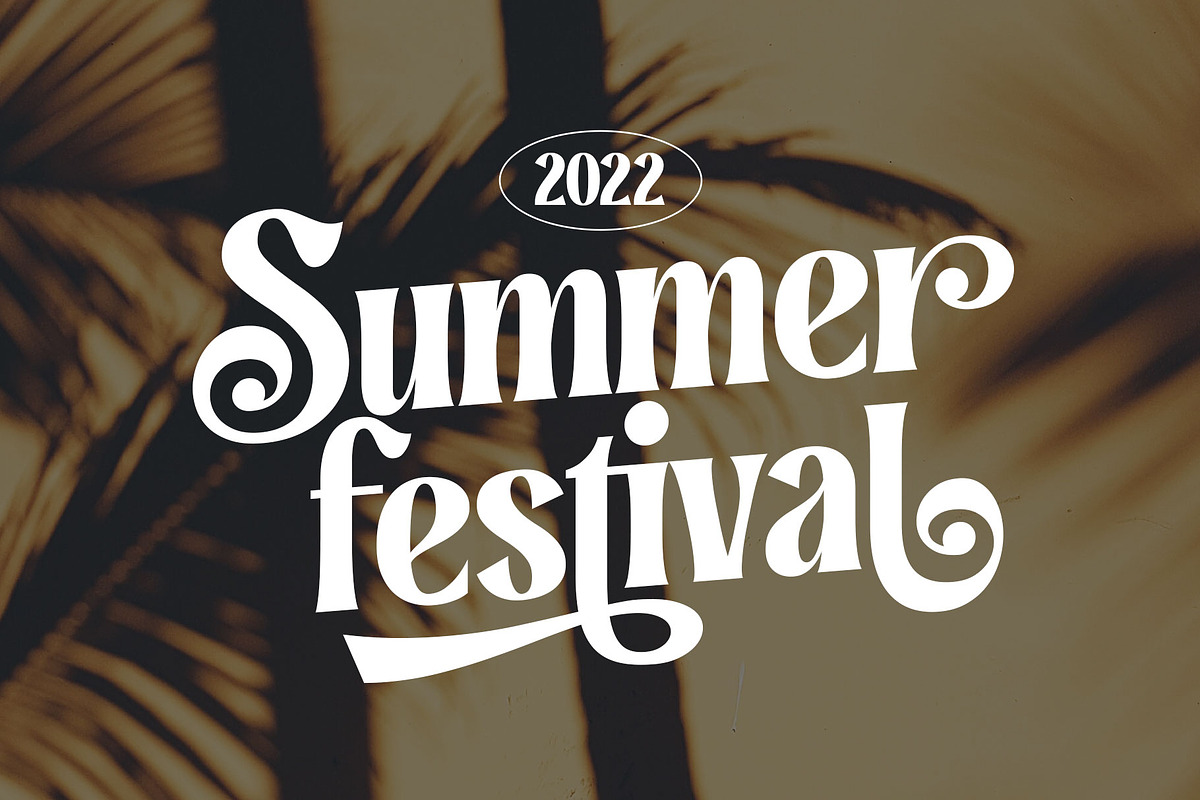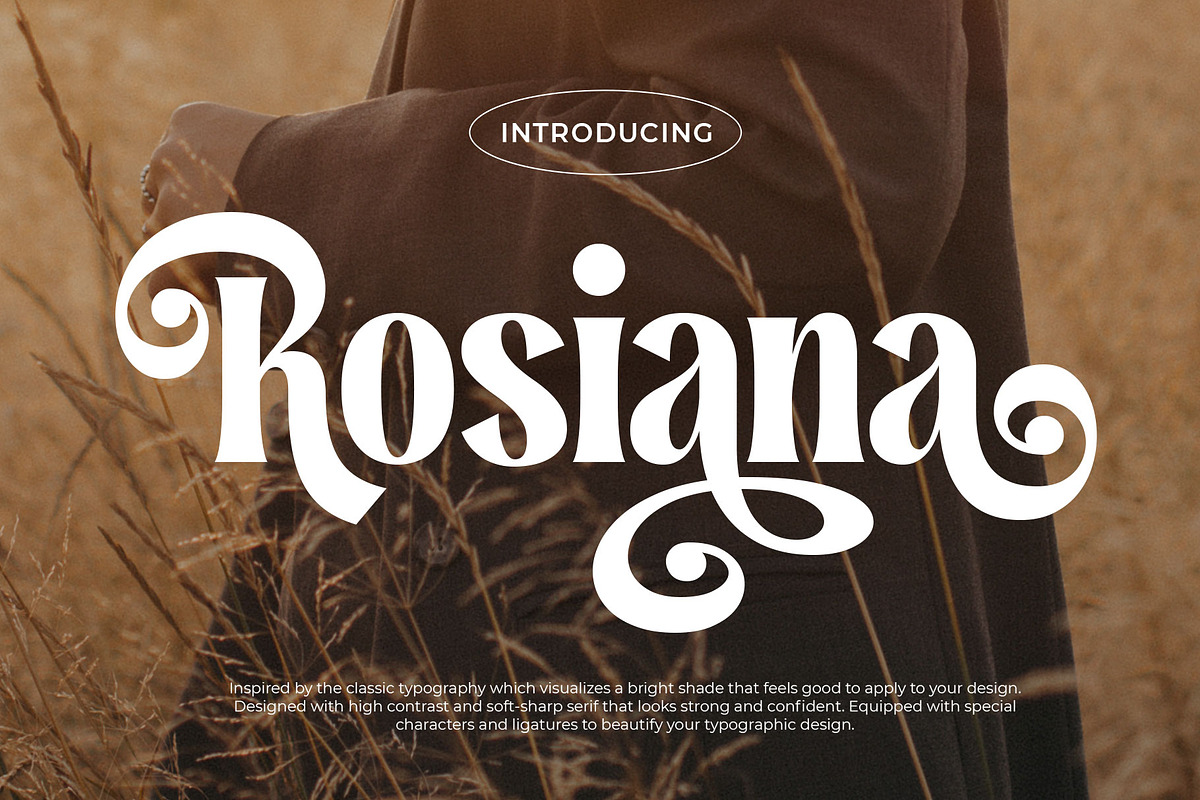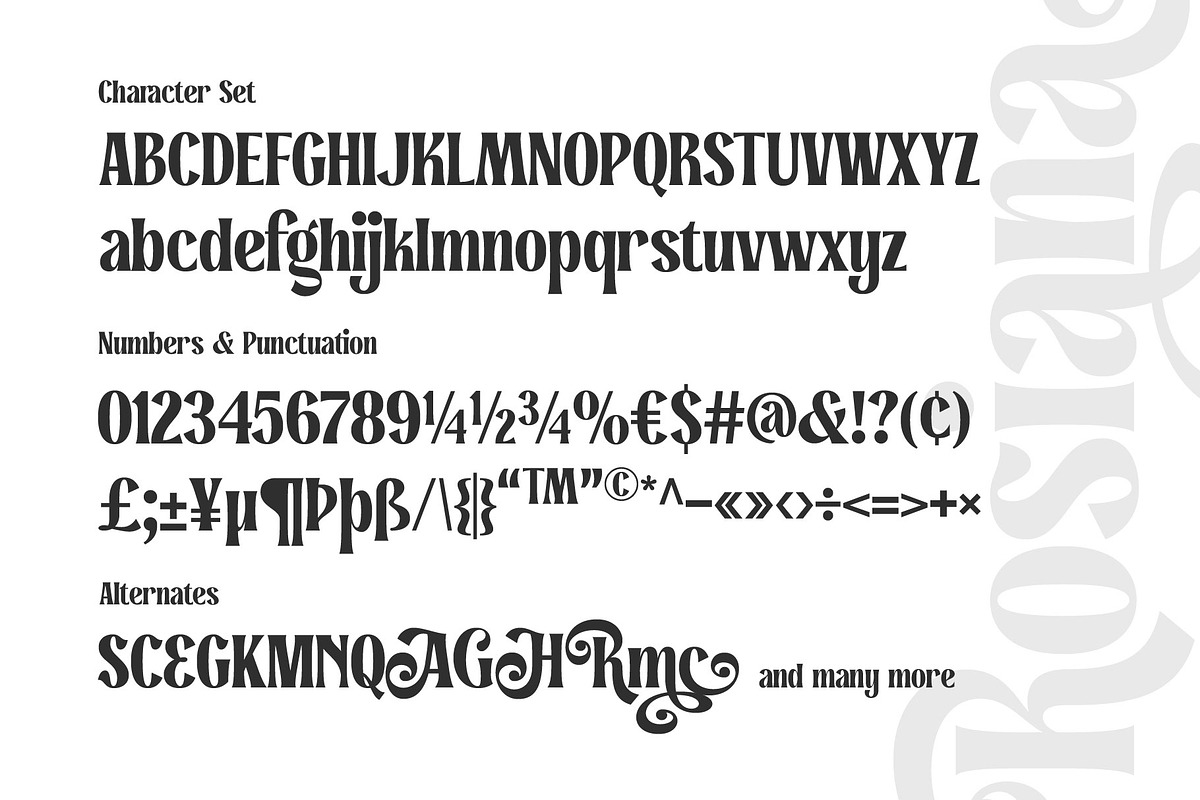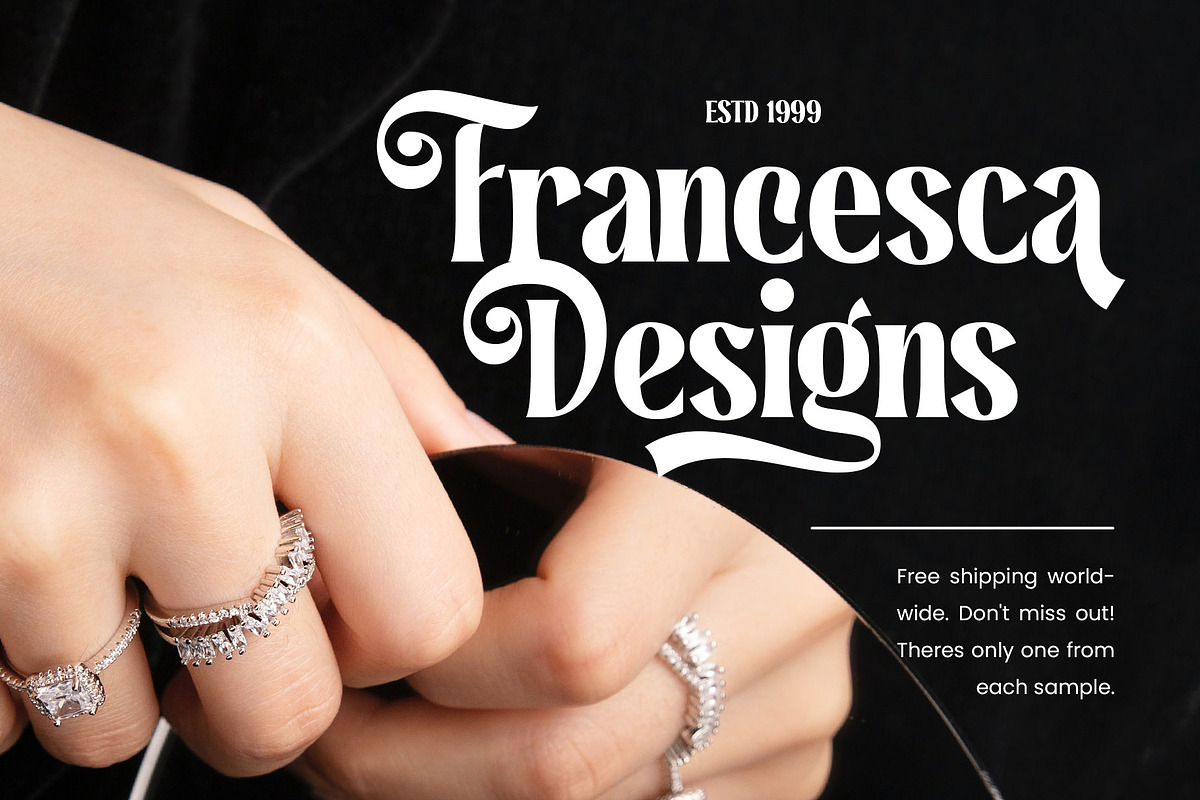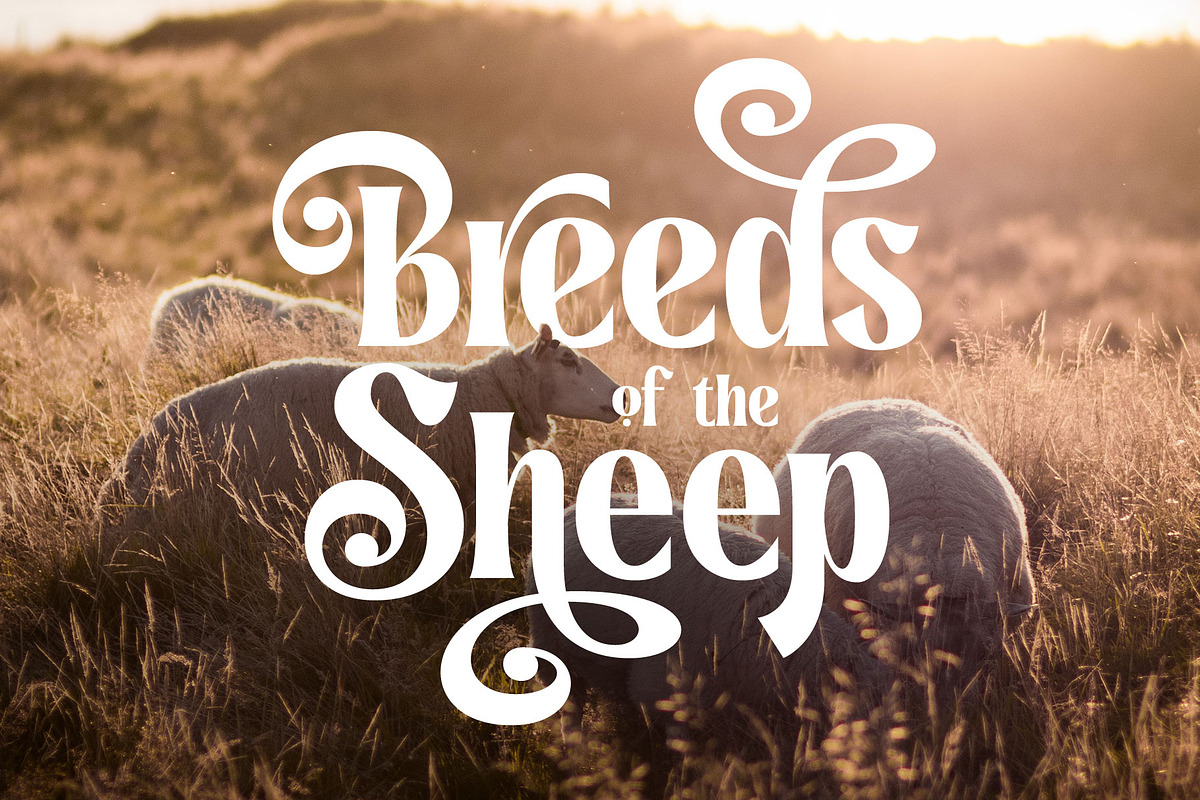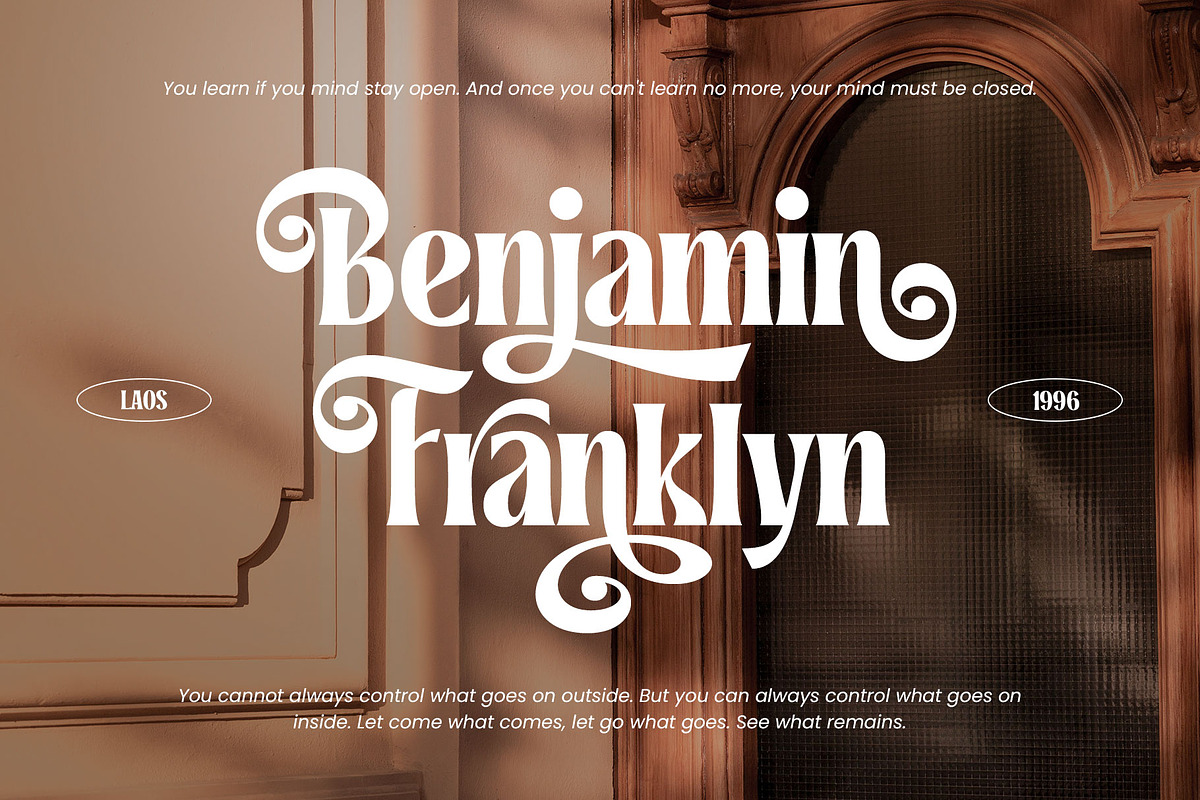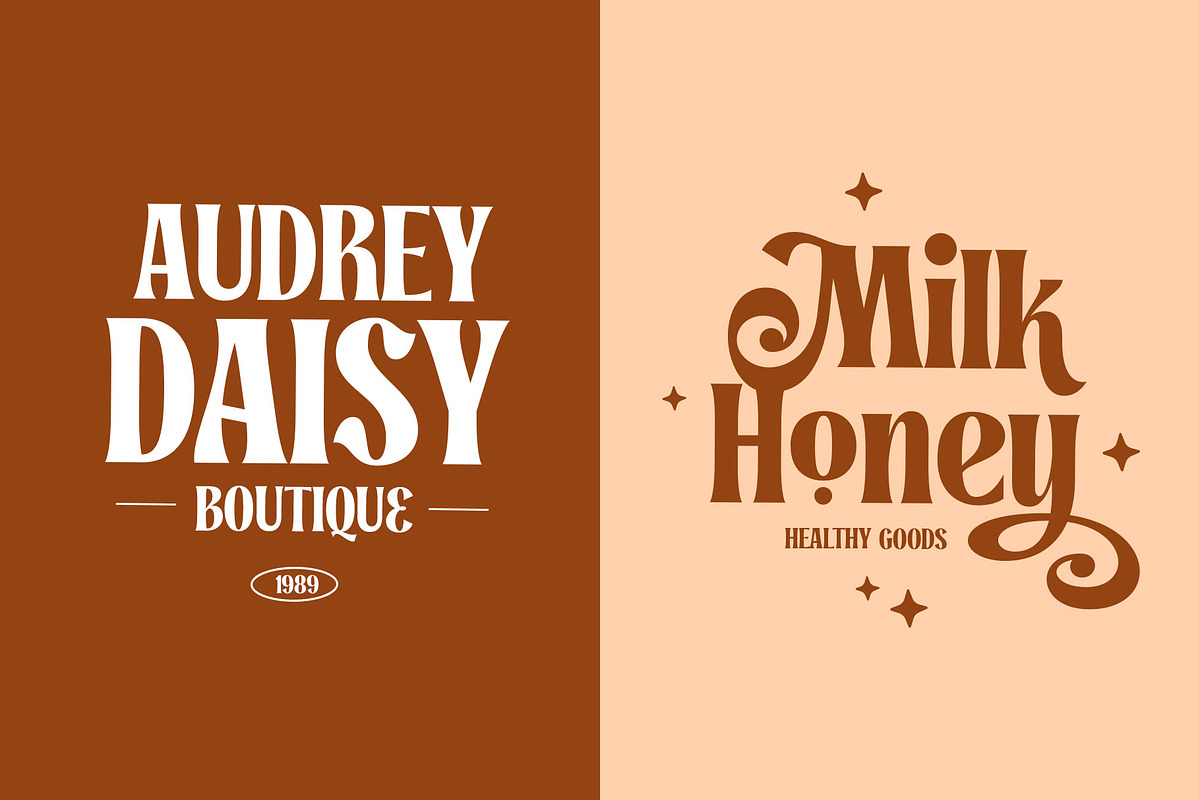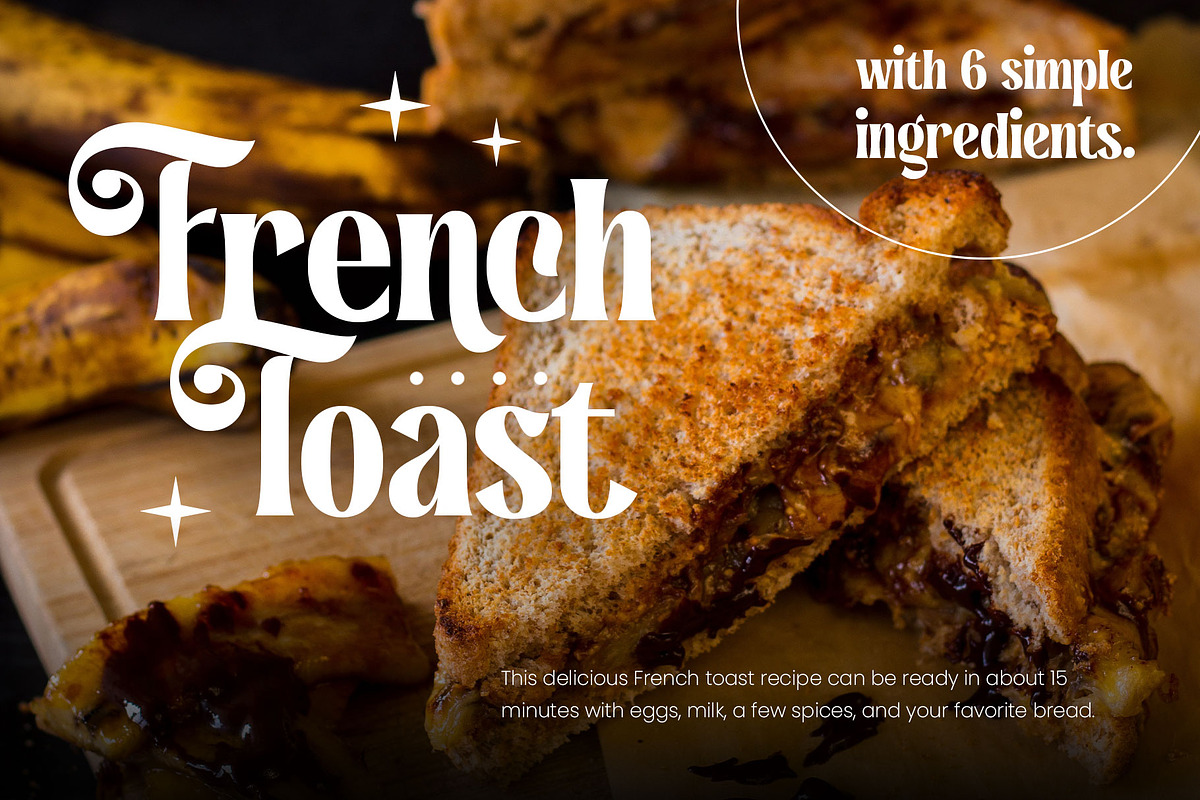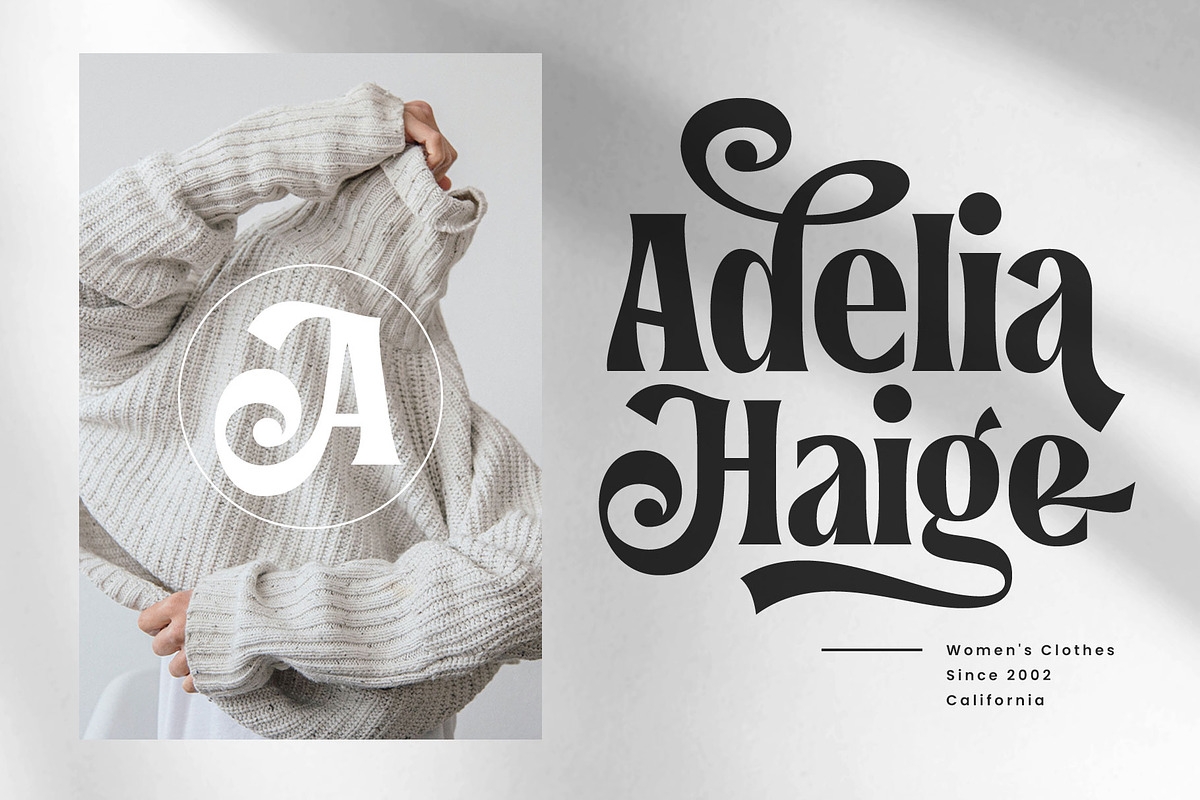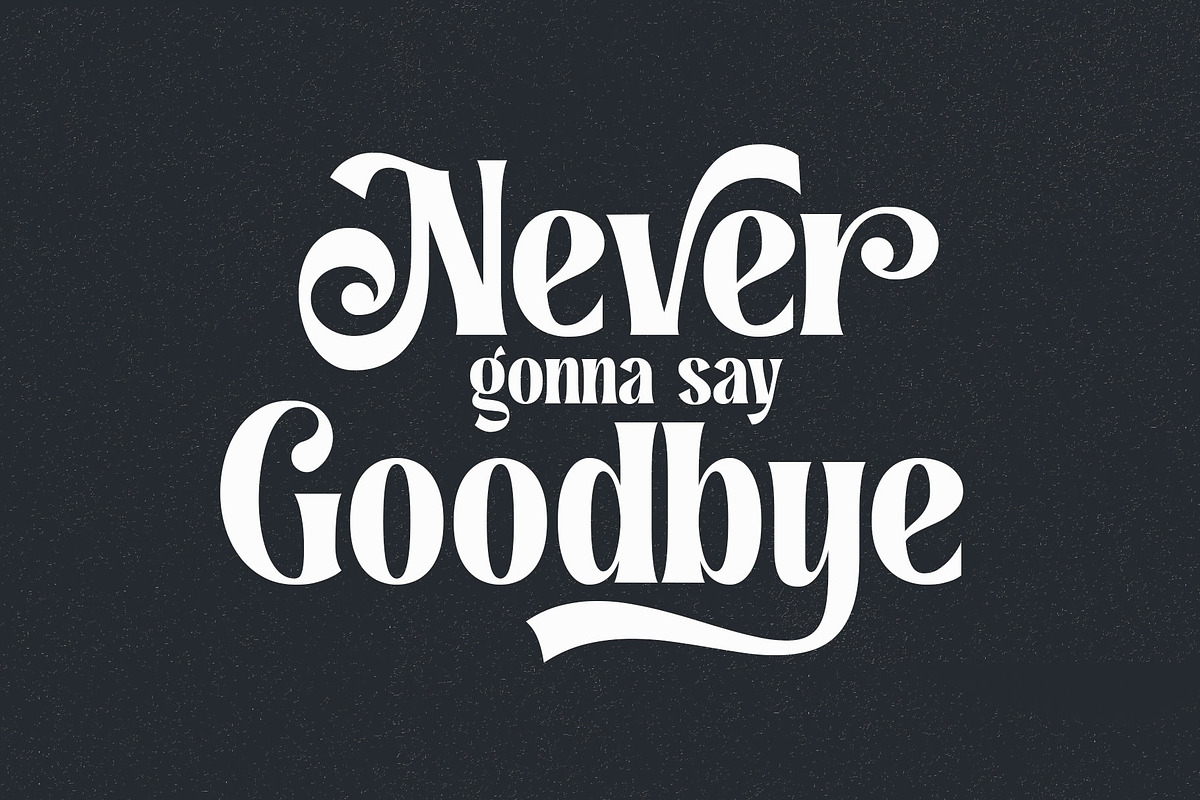
Rosiana - Modern Serif
Rosiana is a modern decorative serif font. Inspired by the classic typography which visualizes a bright shade that feels good to apply to your design, such as magazines, cards, invitations, labels, logo, logotypes, books, packaging, and more!
Designed with high contrast and soft-sharp serif that looks strong and confident as a display. Equipped with 200+ special characters and ligatures to beautify your typographic design.
Font featured:
- Symbol
- Accented characters ÞþßÀÁÂÃÄÅÆÇÐĐÈÉÊËÌÍÎÏŁÑÒÓÔÕÖØŒŠÙÚÛÜŸÝŽàáâãäåæçđèéêëìíîïłñòóôõöøœšùúûüýÿž ĀāĆćĈĉČčĎďĒēĚěĜĝĤĥĨĩĪīĴĵŃńŇňŌōŔŕŘřŚśŜŝŞşŢţŤťŨũŪūŮůŴŵŶŷŹźẀẁẂẃẄẅĹ徼
- Stylistic alternates
- Stylistic set 01-11